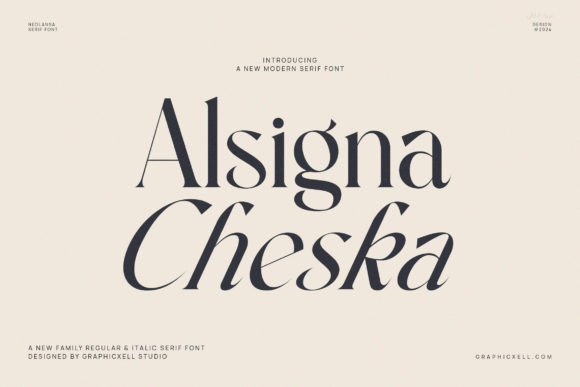
Introduction to Alsgina Cheska Font
The font reminds us about the rich history and ancestry of the Italian type, and the Alsgina Cheska font gets its inspiration from them.
Look at this font; it reflects bravery through the detail and boldness displayed in it Alsgina Cheska is an elegant font serif that brings modern style to serif fonts.
Key Features of Alsgina Cheska Font